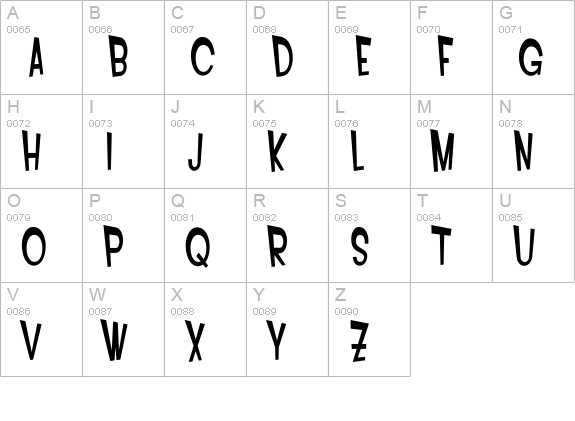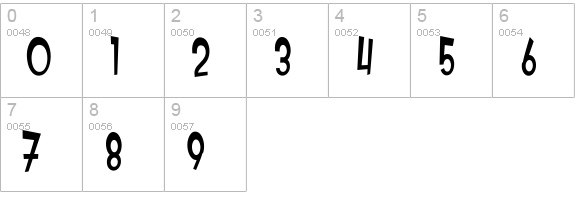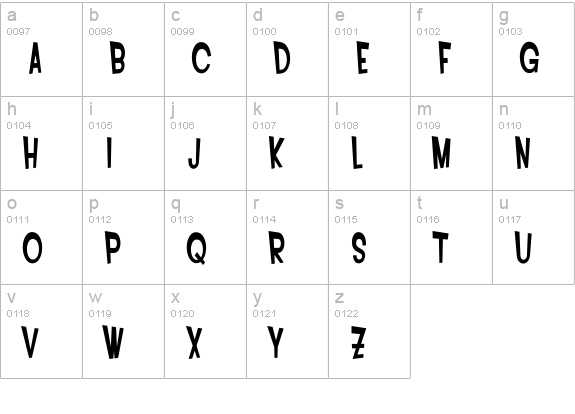
SF Intoxicated Blues Bold Font Details
SF Intoxicated Blues Bold is a strong, high-contrast variant in the SF typeface family \xE2\x80\x94 well suited to headlines, attention-grabbing titles, and strong calls-to-action.
SF Intoxicated Blues Bold font is a mesmerizing typeface that effortlessly captures the essence of the blues. Its bold and striking design stands out, making it perfect for headlines, posters, album covers, and other creative projects. The letters are meticulously crafted with a unique blend of sophistication and edginess, giving them a distinctive and intoxicating appeal. This font exudes a sense of raw emotion and artistic expression, evoking the atmosphere of smoky jazz clubs and dimly lit bars. Each letter is infused with a dynamic energy that resonates with the soulful melodies of the blues. The bold weight adds a powerful impact, making a statement that demands attention. What sets SF Intoxicated Blues Bold font apart is that it is freely available to download at FontsMarket.com. This means that you can effortlessly incorporate this captivating font into your designs without any restrictions or limitations. Whether you're a professional designer, a hobbyist, or anyone in between, you have the opportunity to enhance your projects with this exquisite typeface. With its versatility and timeless appeal, SF Intoxicated Blues Bold font is sure to elevate your designs to new heights. It is the perfect choice for any project that seeks to convey a sense of passion, intensity, and creativity. So, don't miss out on this incredible font – visit FontsMarket.com today and discover the limitless possibilities that SF Intoxicated Blues Bold font can bring to your designs.